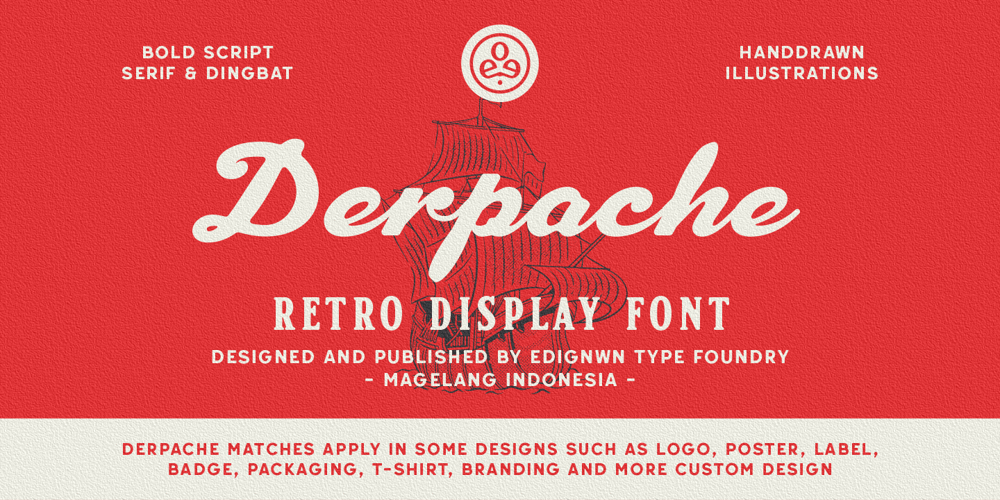
Derpache Font Family was designed by Edi Gunawan and published by Edignwn Type. Derpache contains 9 styles and family package options. The Derpache Font is inspired by authentic typefaces in old labels. This font collections contain script and serif font. Every font comes with 4 style typefaces (regular, rounded, rough and stamp). Derpache gives more extras nautical and pirate in one pack illustrations. This script font includes some alternates. The Derpache matches apply in some designs such as the logo, poster, label, badge, packaging, t-shirt, branding, quotes and more custom design. Derpache features : 4 style typefaces (regular, rounded, rough and stamp) Uppercase, lowercase, numeral, symbol, punctuation and alternate in script font All-caps, numeral, symbol and punctuation in serif font Multilingual PUA Encoded Derpache includes : 9 fonts (script, serif and dingbat) 26 hand-drawn illustrations in dingbat Check out Duhline which is a great pair for Derpache.